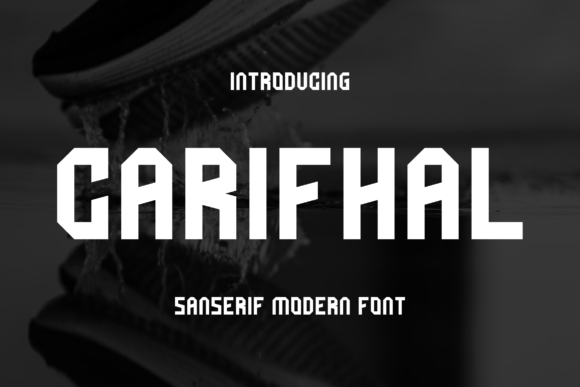
The Carifhal Font Revelation: A Designer’s New Best Friend
I still remember the day I stumbled upon the Carifhal font while working on a last-minute project for a client. I had been searching for the perfect display font for hours, but nothing seemed quite right. That was until I saw Carifhal – its bold, modern aesthetic immediately caught my eye, and I knew I had found the one. In this article, I’ll share my experience with this versatile font, its features, and how you can make the most of it in your designs.
An Honest Review of Carifhal Font
What I Love About Carifhal ✨
• 💥 **Impactful and bold**: Carifhal font makes a statement, perfect for headlines, titles, and emphasis.
• 🎨 **Versatile**: Suitable for various design projects, from digital designs and presentations to crafts and greeting cards.
• 👍 **Easy to read**: Despite its boldness, Carifhal remains surprisingly legible, even at smaller sizes.
While Carifhal is an excellent font, it’s not without its limitations. For instance:
• 🤔 **Limited use for body text**: Due to its bold nature, Carifhal might not be the best choice for lengthy paragraphs or body text.
• ⚠️ **May not be suitable for all languages**: Some languages may require specific glyphs or characters not included in the font.
The Story Behind Carifhal
Carifhal was designed with the intention of creating a bold, attention-grabbing font for modern designs. Its creator aimed to craft a versatile typeface suitable for a wide range of applications, from digital screens to print materials. While the actual origins of Carifhal might be shrouded in mystery, its impact on the design community is undeniable.
Q: What makes Carifhal font unique?
A: Carifhal’s bold and modern aesthetic, combined with its versatility and legibility, make it a standout font.
Q: Is Carifhal suitable for body text?
A: While Carifhal is legible, its bold nature makes it more suitable for headlines and titles. For lengthy body text, consider a complementary font.